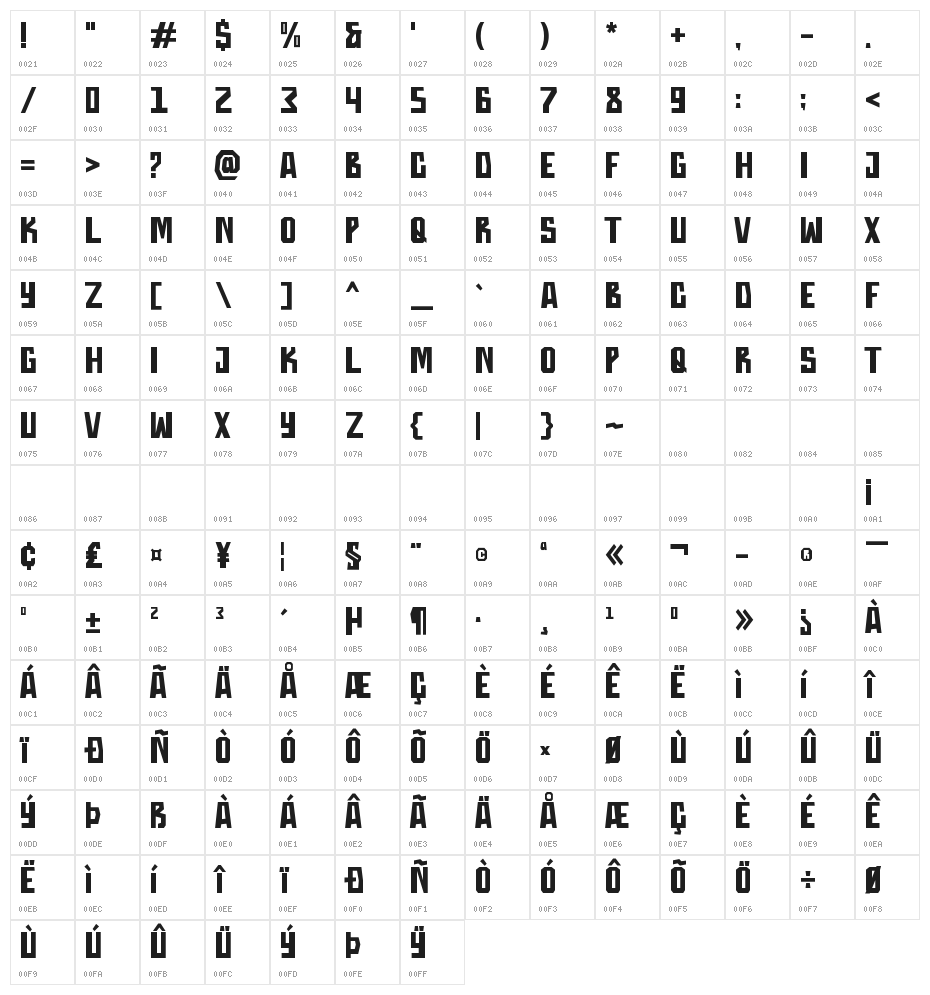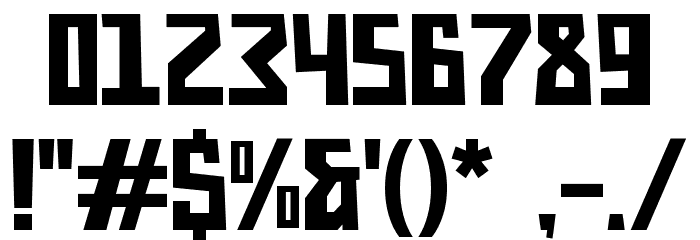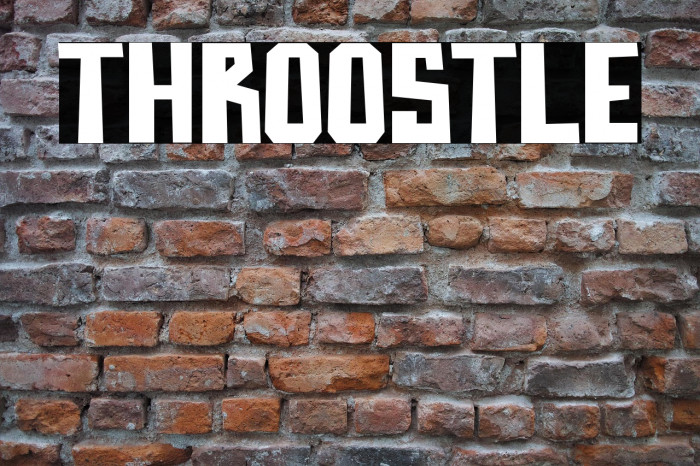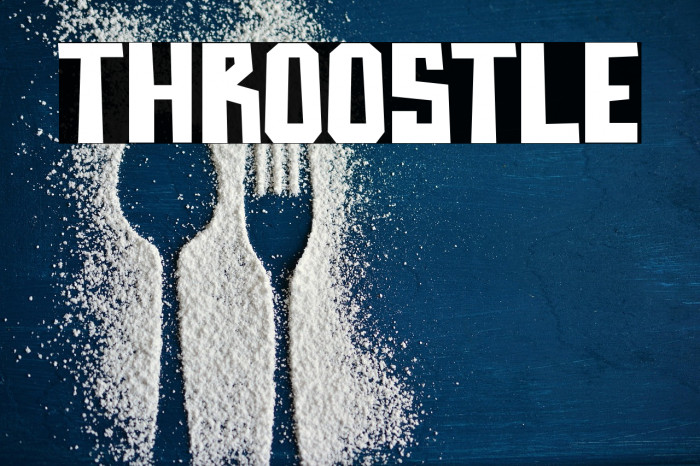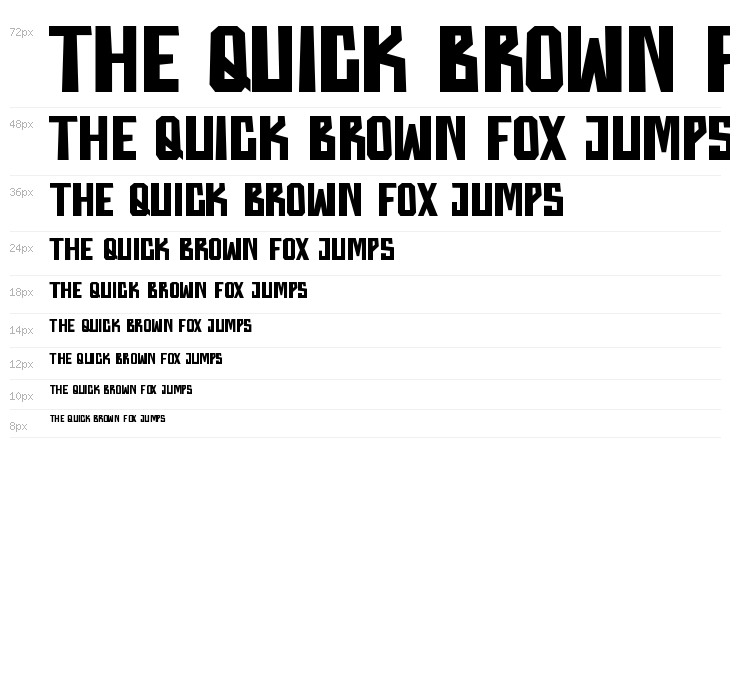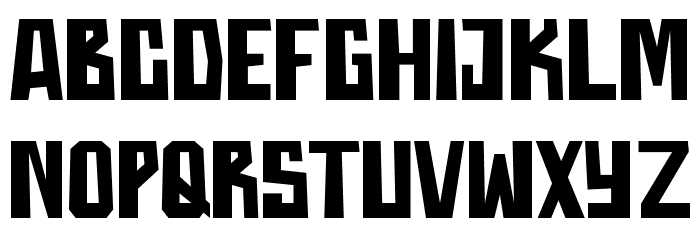
Throostle Font
Throostle Description
This font features a bold and striking design with angular, geometric shapes that give it a modern and edgy appearance. The uppercase letters are particularly prominent, with sharp edges and a blocky structure that commands attention. The lowercase letters maintain the same boldness, ensuring consistency across the typeface. Numbers and special characters are designed to match the overall aesthetic, making them equally bold and impactful. The font's style is reminiscent of urban and industrial themes, making it suitable for projects that require a strong visual presence.
| Proposed Projects | Ideal for posters, logos, branding, and headlines that need a strong, modern impact. |